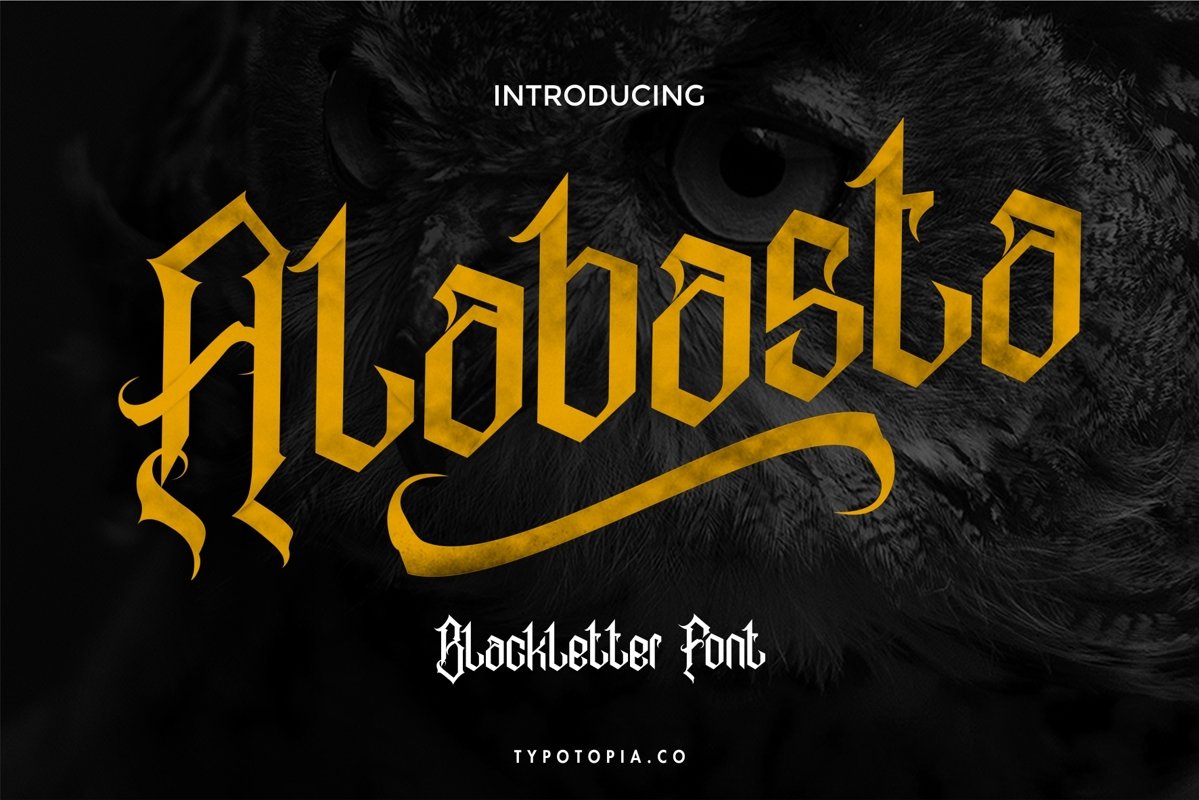
Alabasta - The Blackletter Font
Alabasta-Regular
Introducing Alabasta The Blackletter font, Alabasta is an unique blackletter for your design. This Font Includes uppercase, lowercase and punctuations and international characters. Alabasta also great choice for several purpose, it suitable for for headline, logotype, apparel, invitation, branding, packaging, advertising etc.